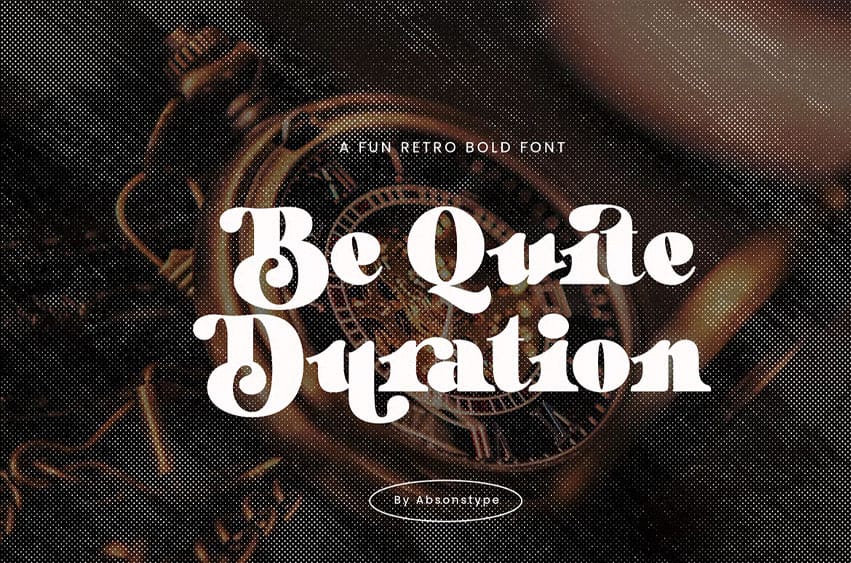
Be Quite Duration Font is a bold and playful serif display font inspired by the retro aesthetic, infused with a modern twist. Designed to spark imagination and elevate visual storytelling, this typeface is packed with expressive details and a magical flair.
With tons of alternates and elegant ligatures, Be Quite Duration lets you create standout headlines, logos, and branding projects with ease and personality. Whether you’re designing for editorial, packaging, or digital media, this font delivers charm and impact.
- Full set of uppercase & lowercase characters
- Alternates & ligatures for dynamic compositions
- Multilingual support for Western and Central European languages